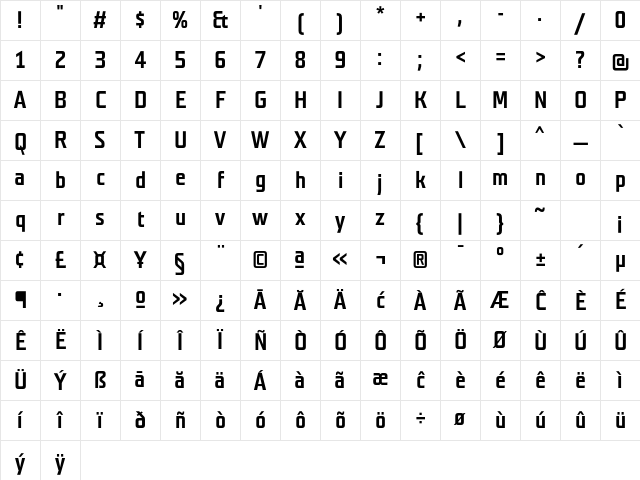
Teuton Mager Bold
Design Context for Teuton Mager
Teuton Mager is a composed and adaptable typeface that performs quietly and consistently across a wide range of design contexts. Its bold stroke weight gives it real presence on the page.
Pro Tip: Use Teuton Mager in both headline and body roles to test its range before committing to a single application.